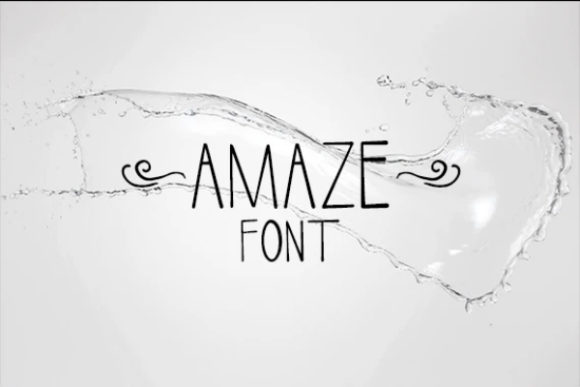
Introducing Amaze Font, the captivating sans serif font that will leave a lasting impression on your designs.
Amaze Font is a meticulously crafted masterpiece, designed to evoke a sense of warmth and approachability. Its soft, rounded edges create a friendly and inviting aesthetic, making it perfect for projects that aim to connect with audiences on a personal level.
The versatility of Amaze Font is truly remarkable. It seamlessly transitions between various design contexts, from playful and whimsical to professional and sophisticated. Whether you're crafting eye-catching headlines or creating engaging body text, Amaze Font will elevate your designs with its effortless charm.
Imagine your words dancing across the screen, imbued with the captivating power of Amaze Font. It's a font that speaks to the heart, inviting readers to immerse themselves in your content.
Its exceptional readability ensures that your messages are conveyed with clarity and precision. Whether you're creating presentations, website content, or marketing materials, Amaze Font will ensure that your words leave a lasting impact.